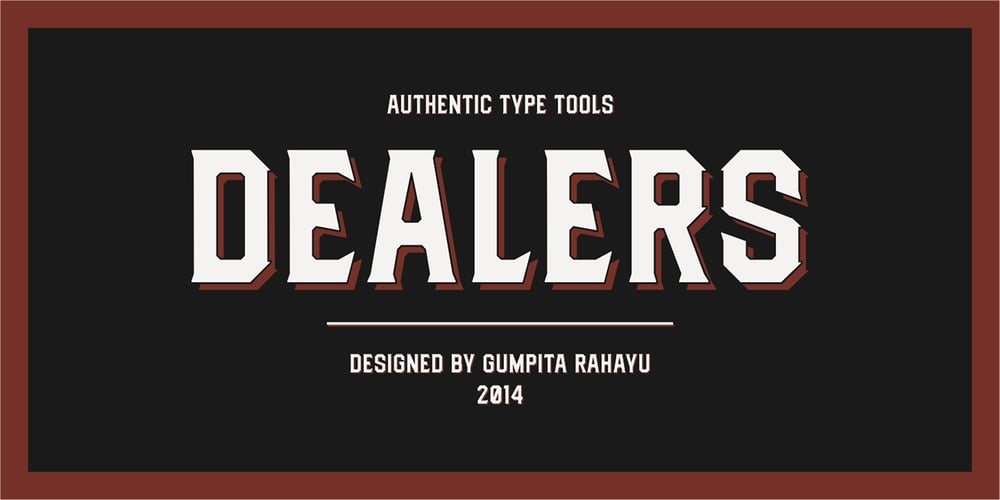
Dealers Font Family was designed by Gumpita Rahayu and published by Gumpita Rahayu. Dealers contains 3 styles and family package options. Back to the past when the old building and the beauty of a old store decorated by distinctive signage. With a clear feels of authentic historical value and the today’s needs must be balanced in order to create the nostalgic feels. Introducing an authentic touch based on old fashioned signage developed into the wood type feels, and it’s called Dealers. Dealers is a development of the classic taste wood type to form a solid blocked shapes, modern serifs, and with all caps based characters and slightly condensed. With specific characteristics, dealers font is intended for coffee shops, stores, restaurant menu that you want to create the impression of a classic and harmonious. With the addition of catchwords in the OpenType features, allowing you to be more creative to meet the requirements on the design you create.